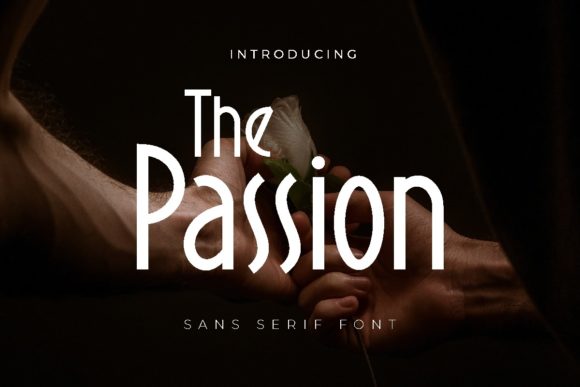
Welcome to the world of The Passion Font, an extraordinary creation inspired by the beauty of life. This minimalist sans serif font, meticulously crafted by Pidco.art, is an artistic masterpiece that blends simplicity with elegance.
Embark on a typographic journey where sophistication meets versatility, and where each character exudes a tale of its own. The Passion Font is not just a collection of letters, but a tapestry of emotions woven into every stroke. Immerse yourself in a font that sparks creativity and ignites imagination.
Step into the realm of design possibilities with The Passion Font, a treasure trove of unique characters that will elevate your brochures. Its delicate curves and sharp edges dance in perfect harmony, creating a visual spectacle that demands attention.
Transform your words into captivating messages that leave a lasting impression. The Passion Font's clean lines and airy feel make it the perfect choice for conveying your thoughts and ideas with clarity and grace.
Envision your words taking flight, carried by the wings of this exceptional font. Its versatility knows no bounds, making it an ideal companion for designing captivating posters, eye-catching social media graphics, or stunning website banners.
With The Passion Font, your designs will radiate an aura of sophistication that commands attention. Its timeless appeal transcends trends, ensuring that your creations remain relevant and captivating for years to come.
Join the creative revolution and embrace The Passion Font, a font that ignites your passion for design. Let your imagination soar and create visual masterpieces that leave your audience in awe.